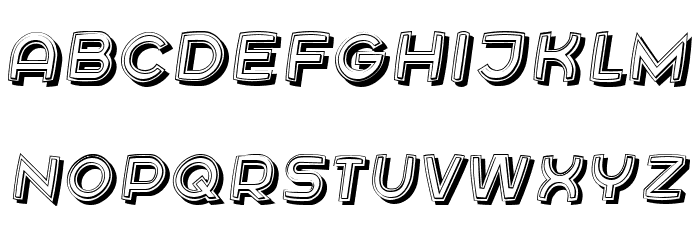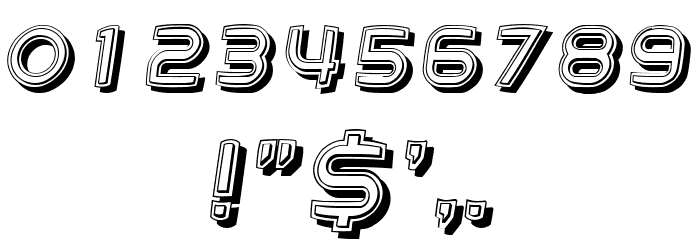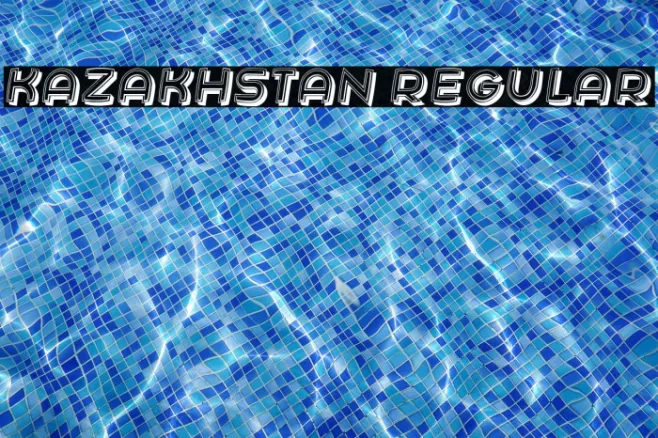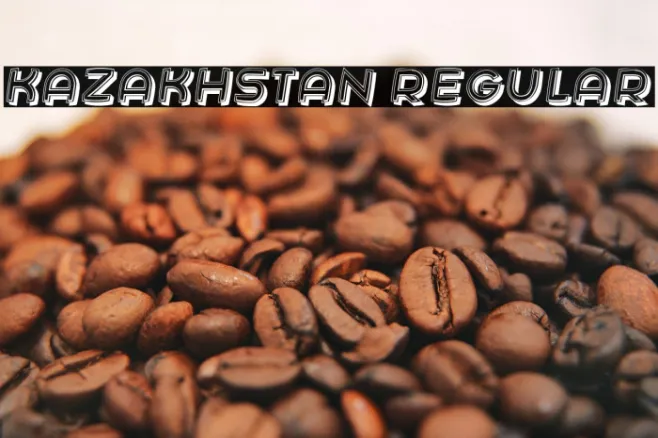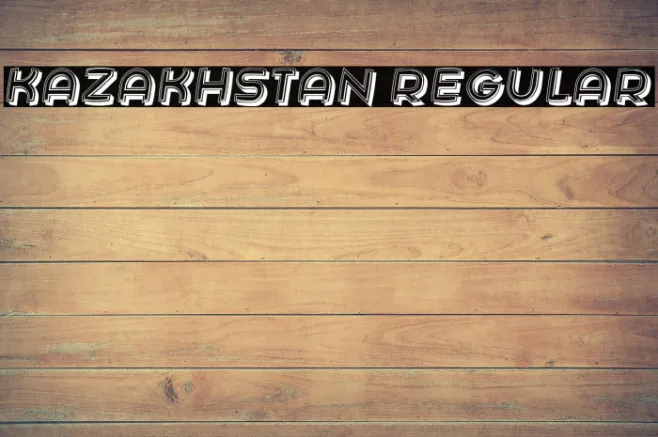
Kazakhstan Regular Font
This font features a bold and dynamic 3D effect, giving each character a sense of depth and dimension. The letters are outlined with a thick shadow, creating a striking visual impact. The style is playful yet structured, with clean lines and geometric shapes that make it stand out. The uppercase and lowercase letters maintain a consistent design, while the numbers and special characters complement the overall aesthetic. This font is perfect for projects that require a bold statement and a modern, eye-catching look.
A bold, 3D-effect font with a playful and structured design.
- Font: Kazakhstan Regular
- Proposed Projects: Ideal for posters, headlines, branding, and any design needing a strong visual impact.